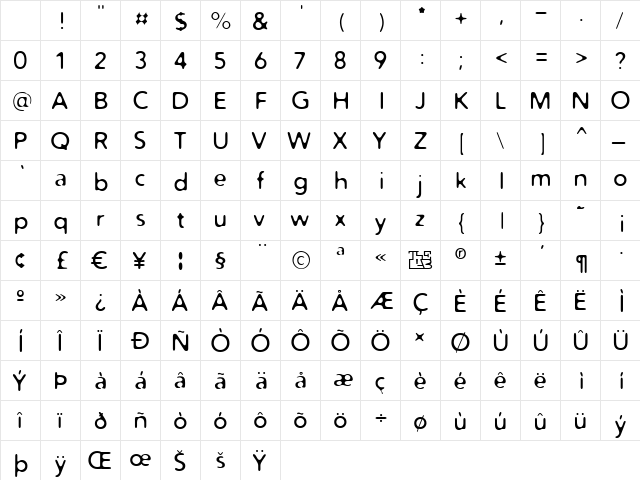
Distro Regular Free Font
Distro Regular
Designer: Peter Ramsey & Apostrophe
Design Context for Distro
Distro is a composed and adaptable typeface that performs quietly and consistently across a wide range of design contexts.